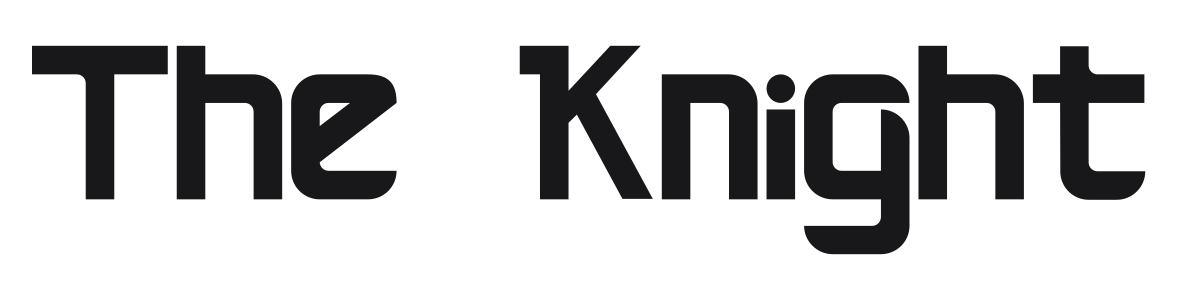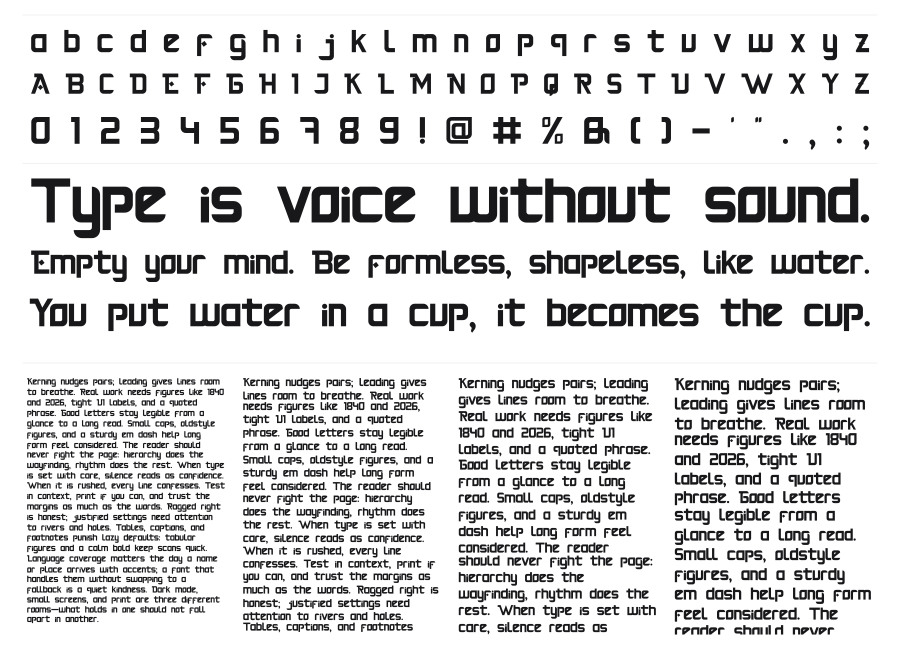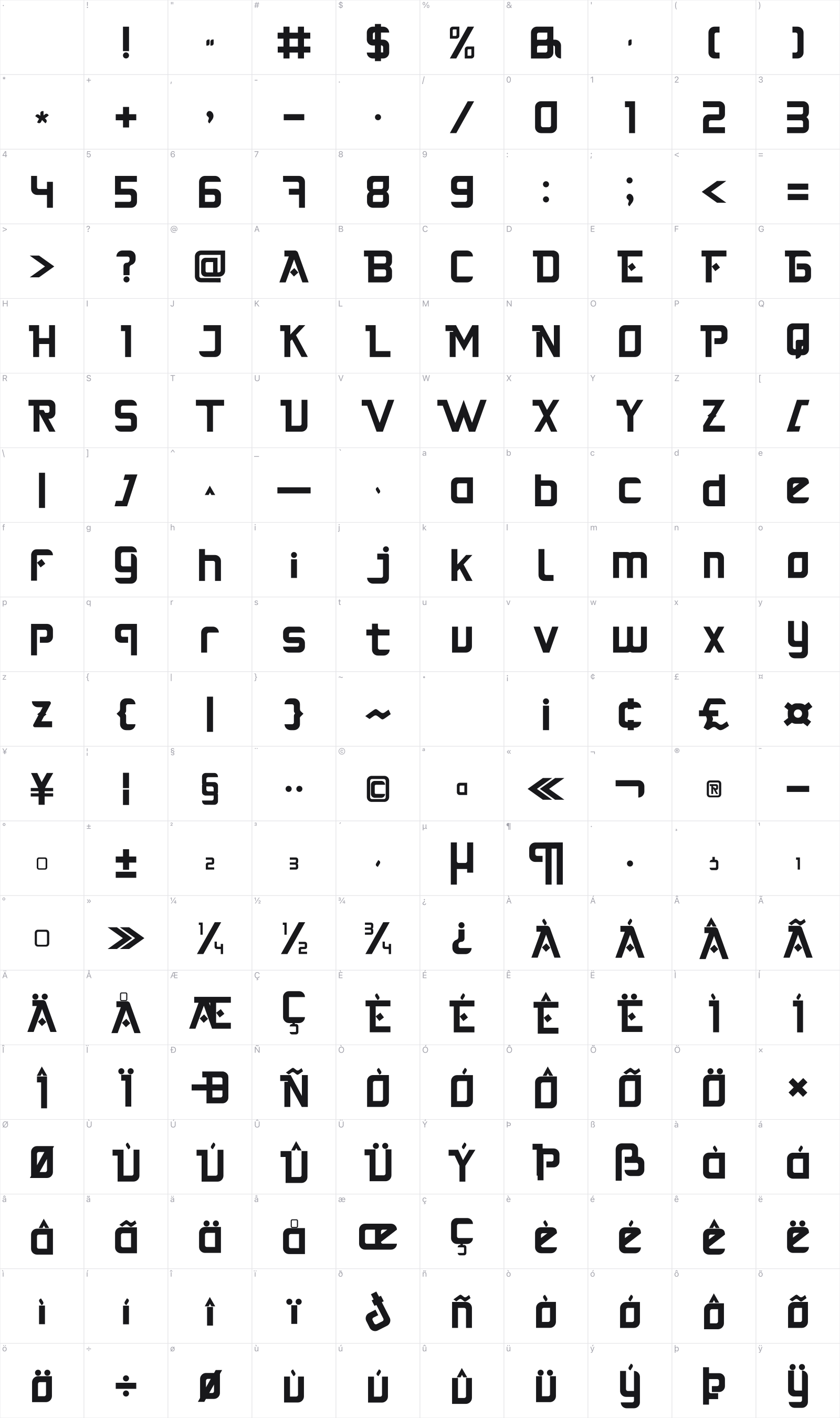
The Knight
The Knight is a heavy squared geometric sans with sharp angular construction and carefully placed notch details that give it a mechanical, armored quality. It sits comfortably between brutalist display type and techno lettering, making it effective for gaming, sports, and entertainment contexts. The bold weight and tight rectangular forms hold up well at large headline sizes.